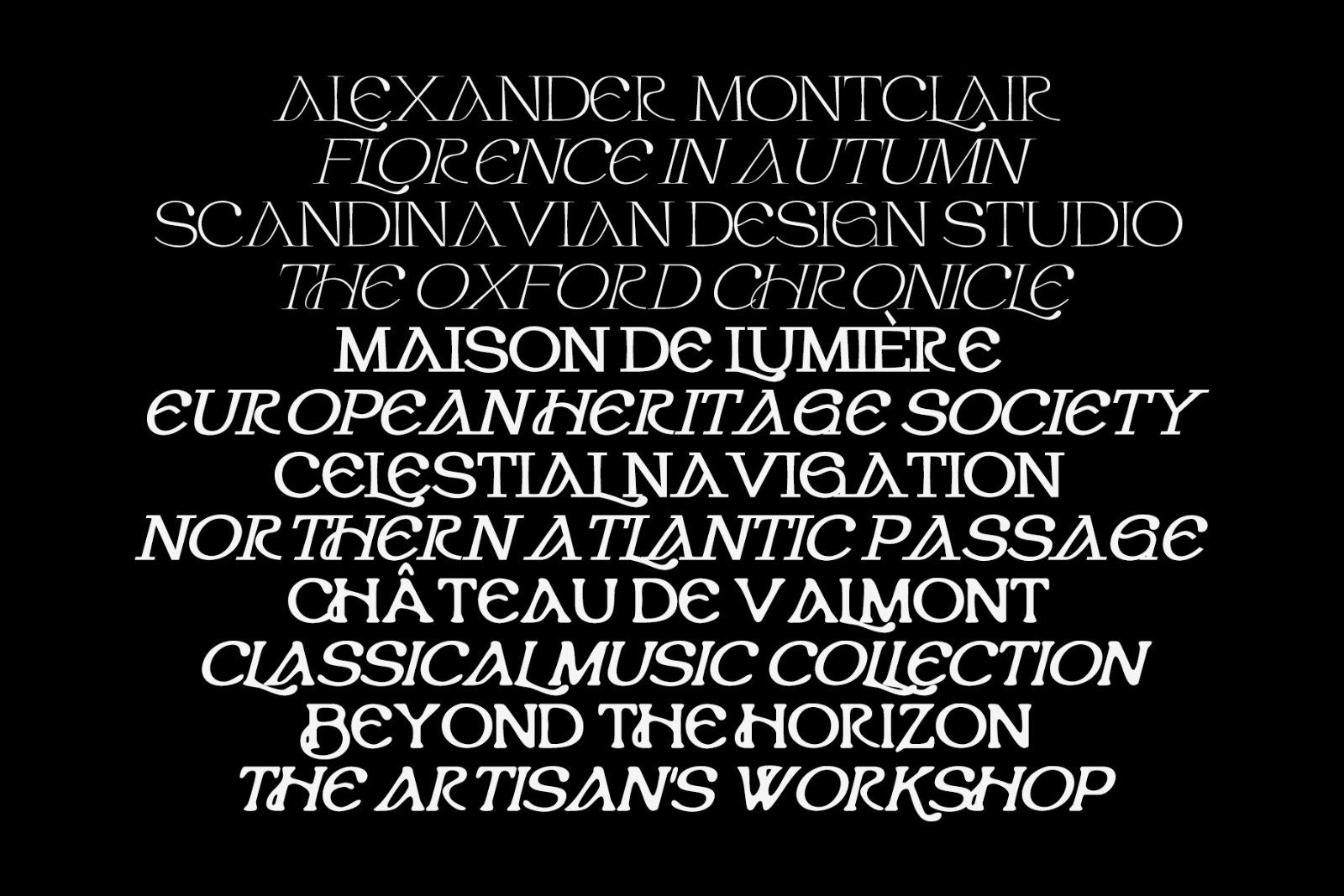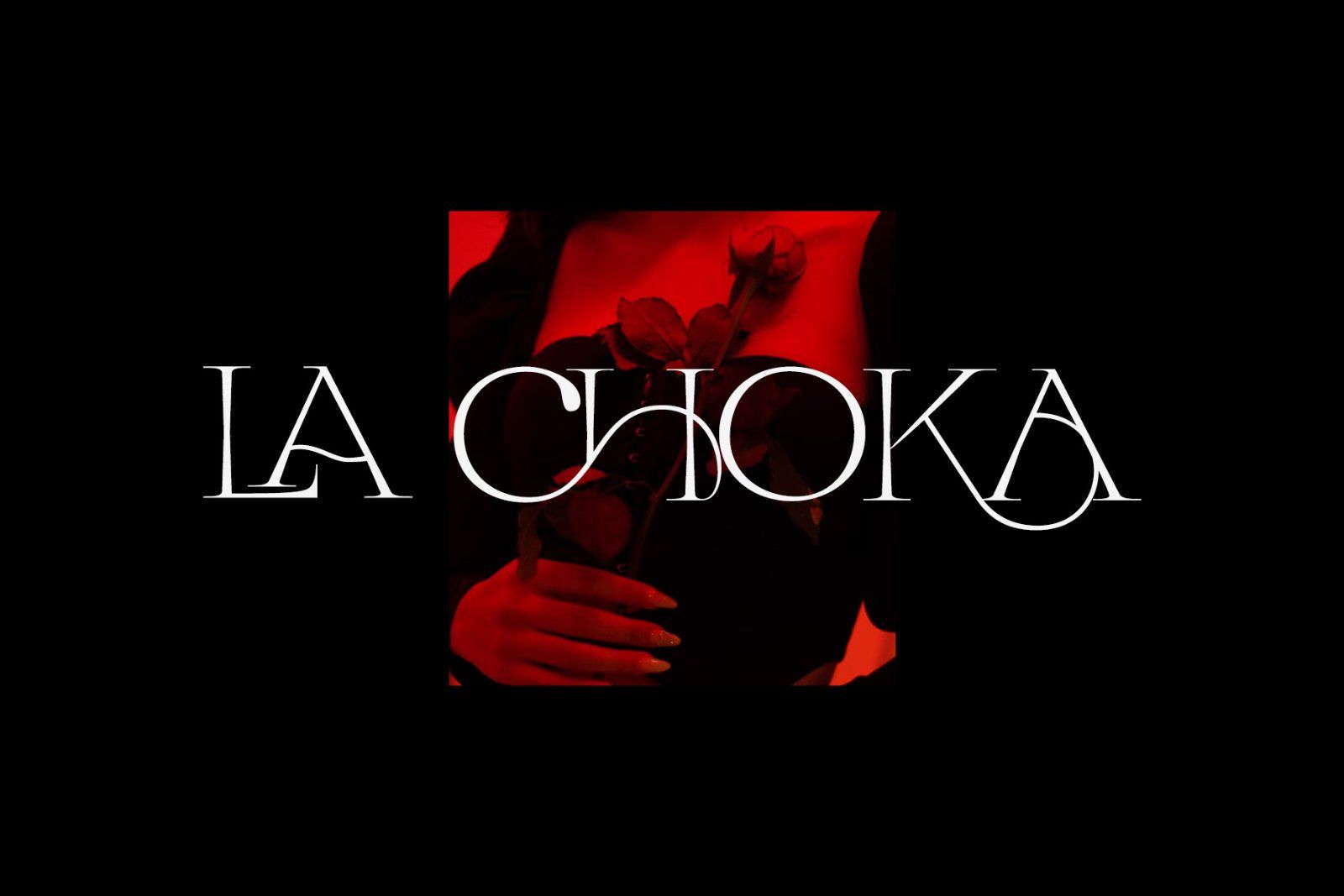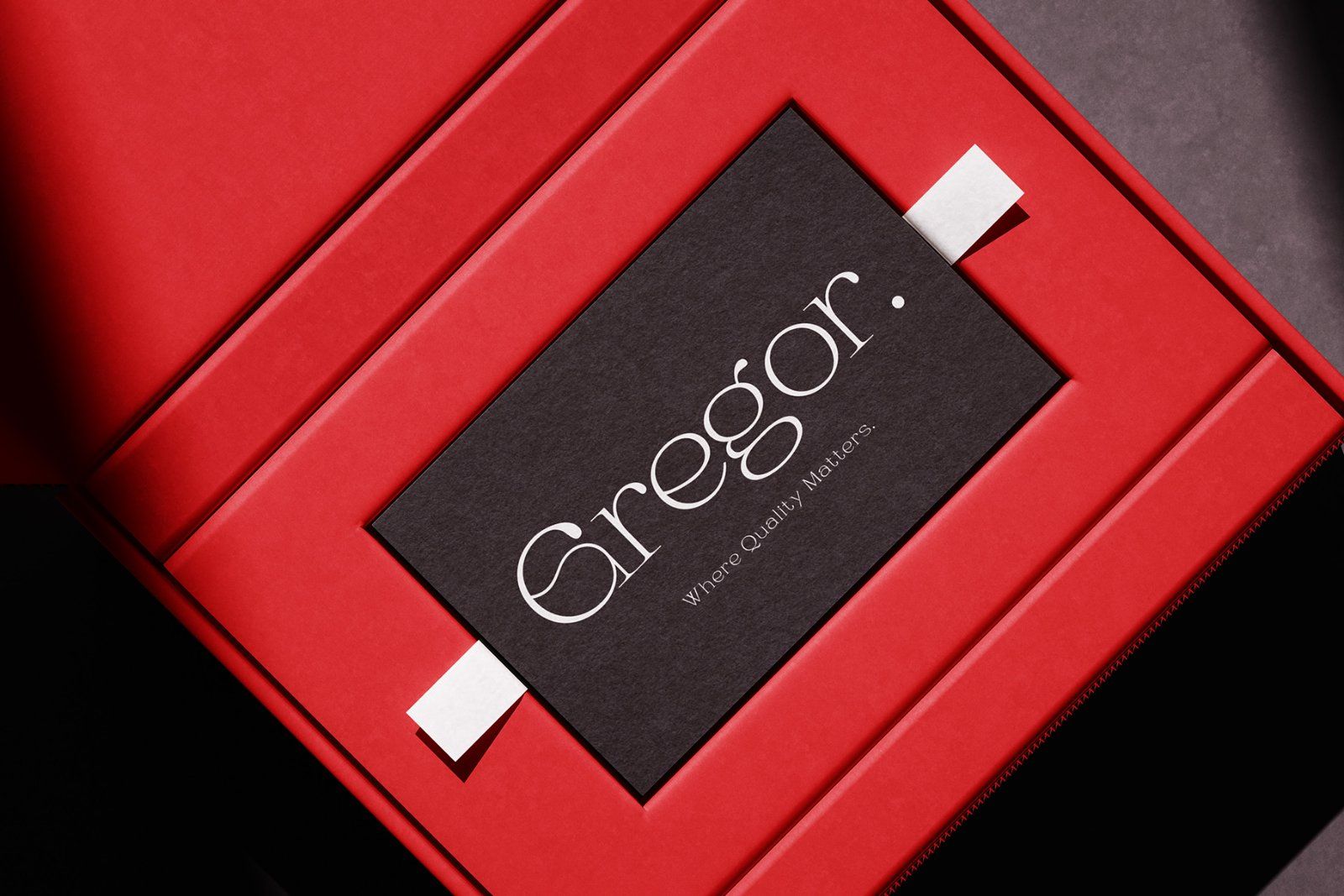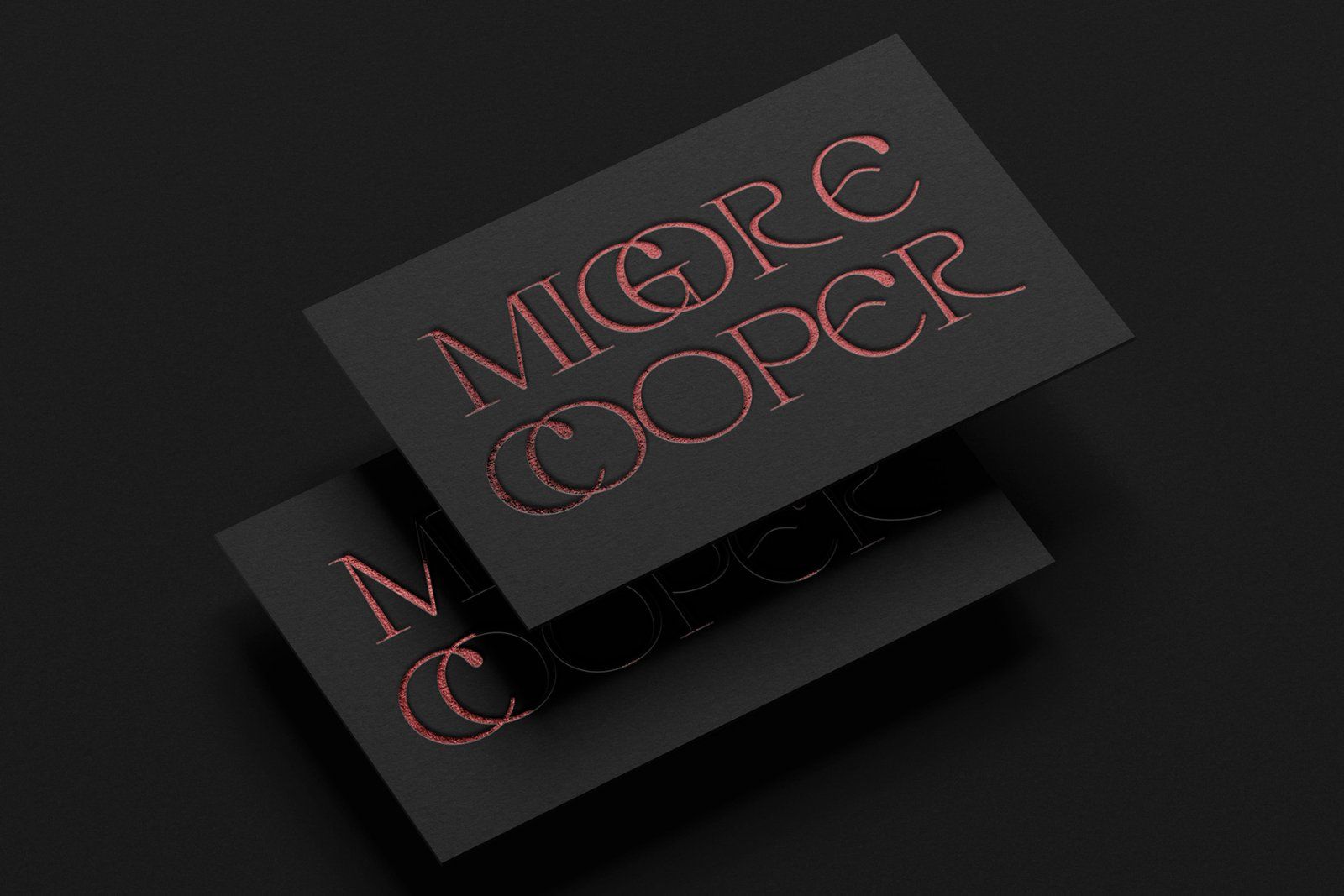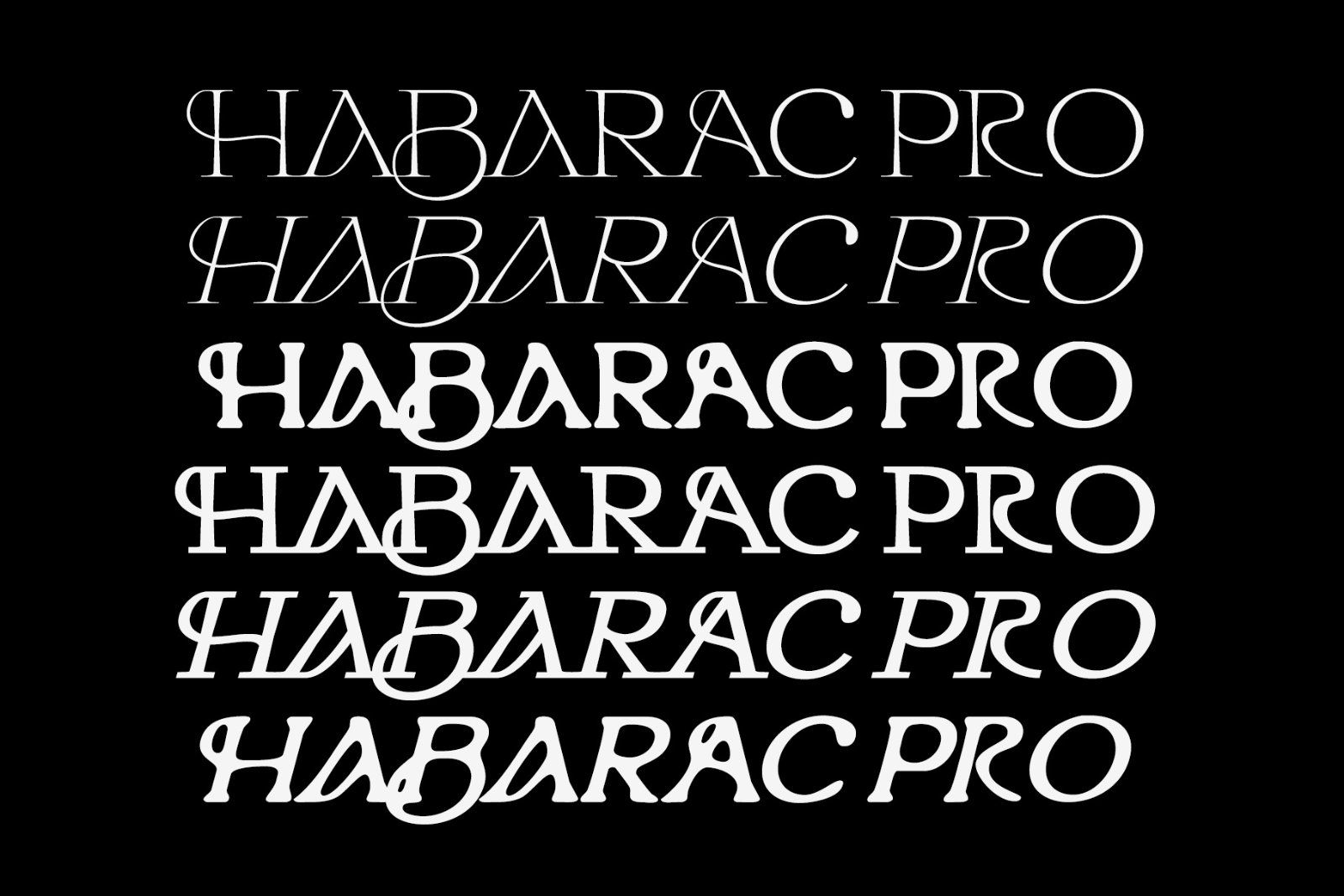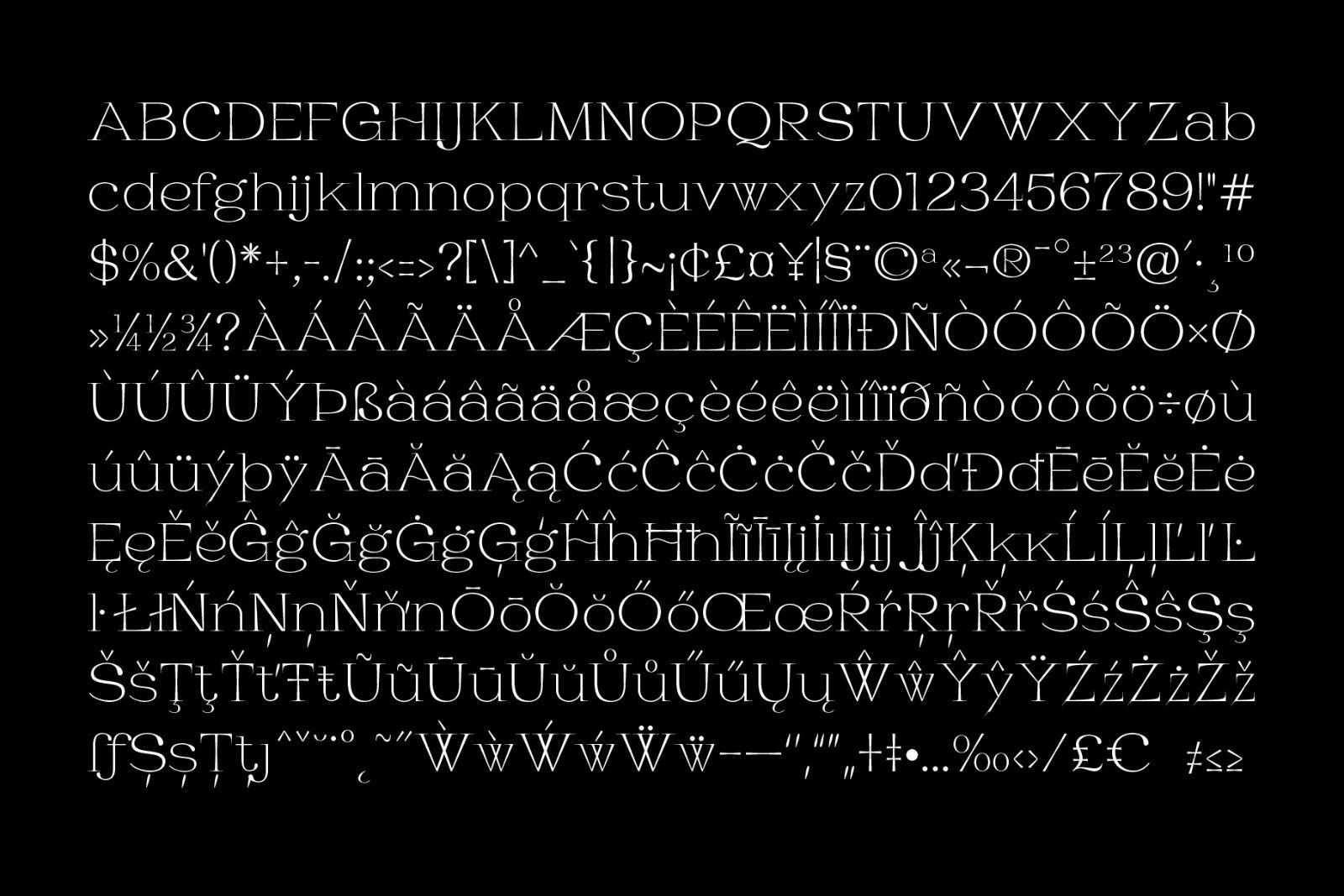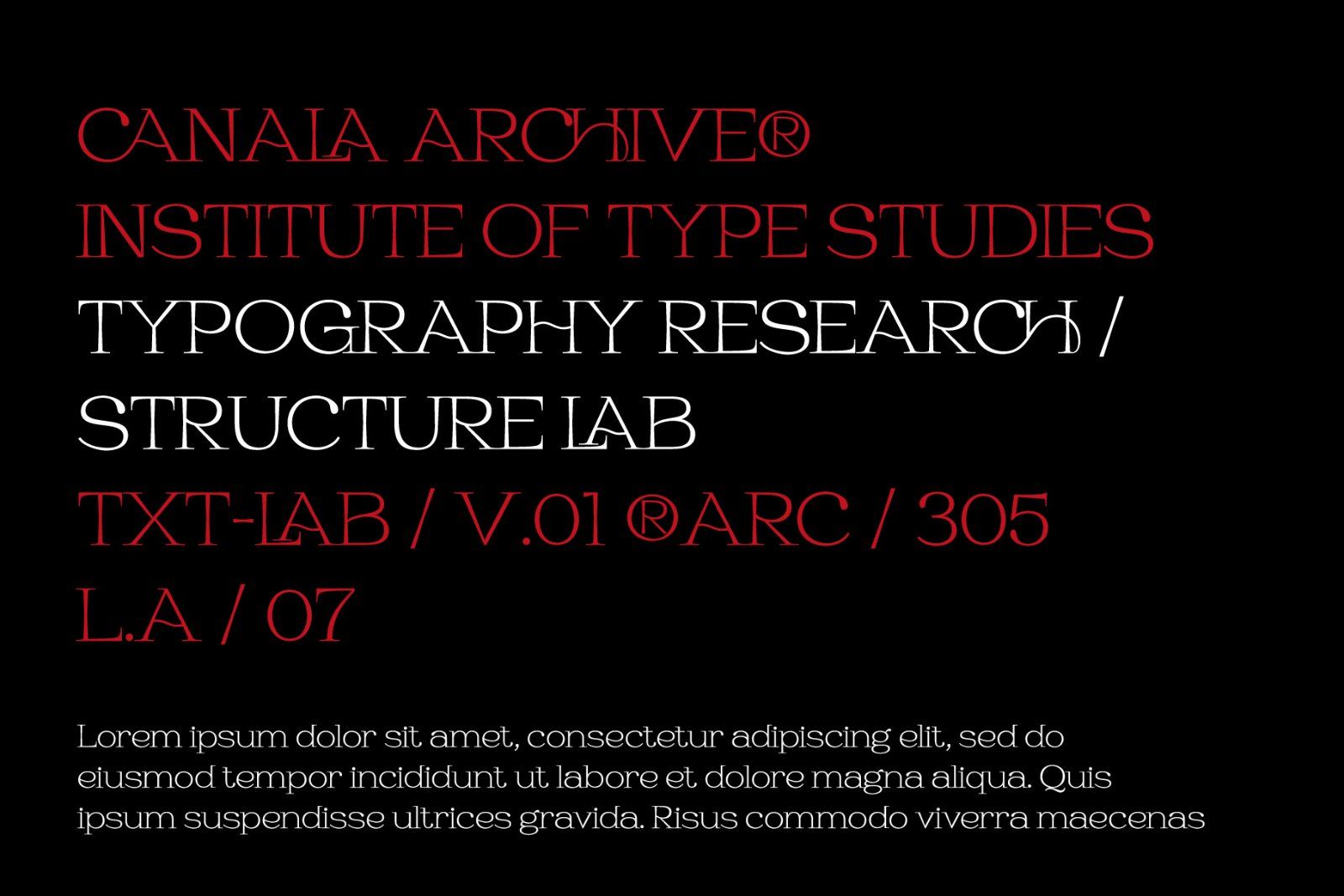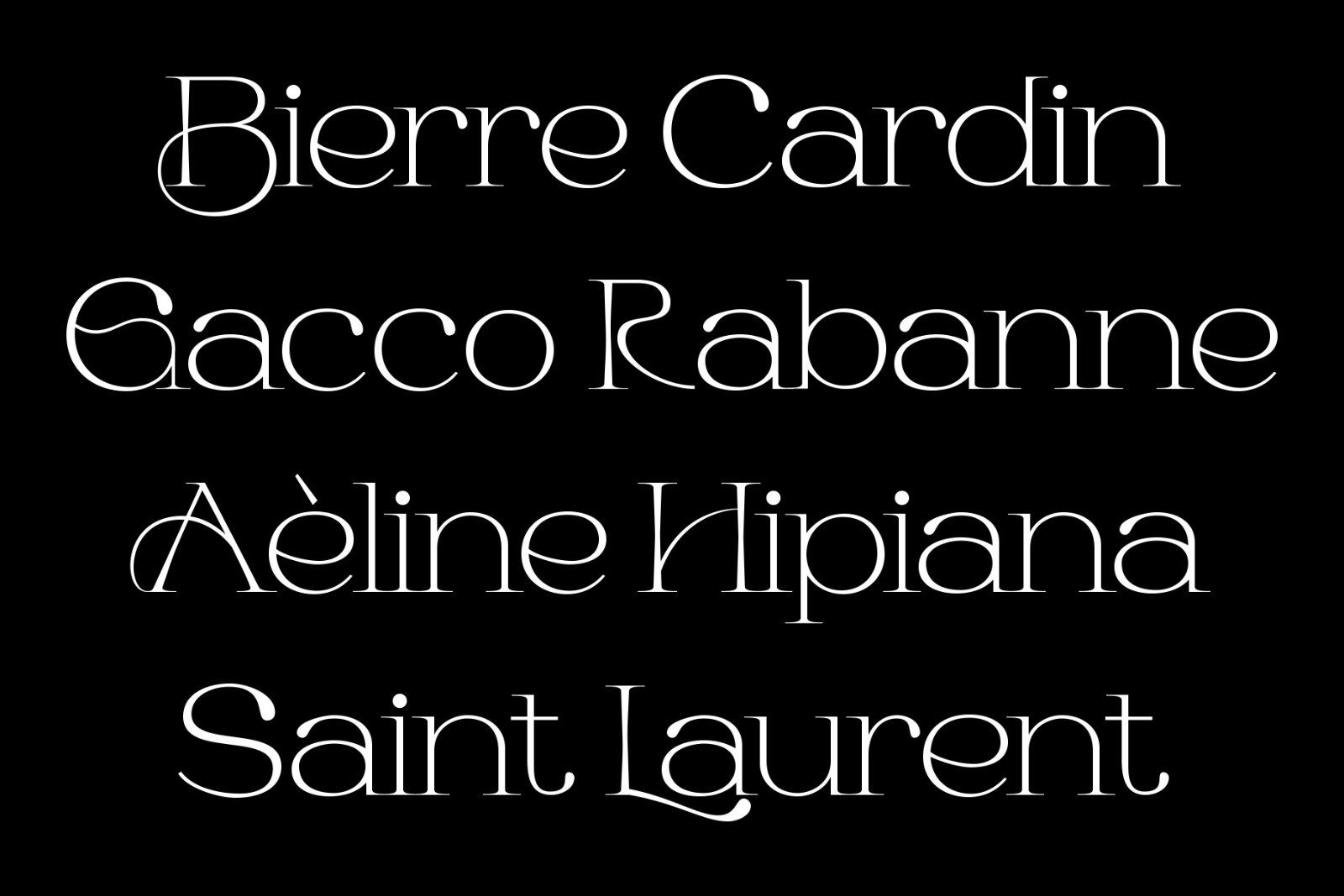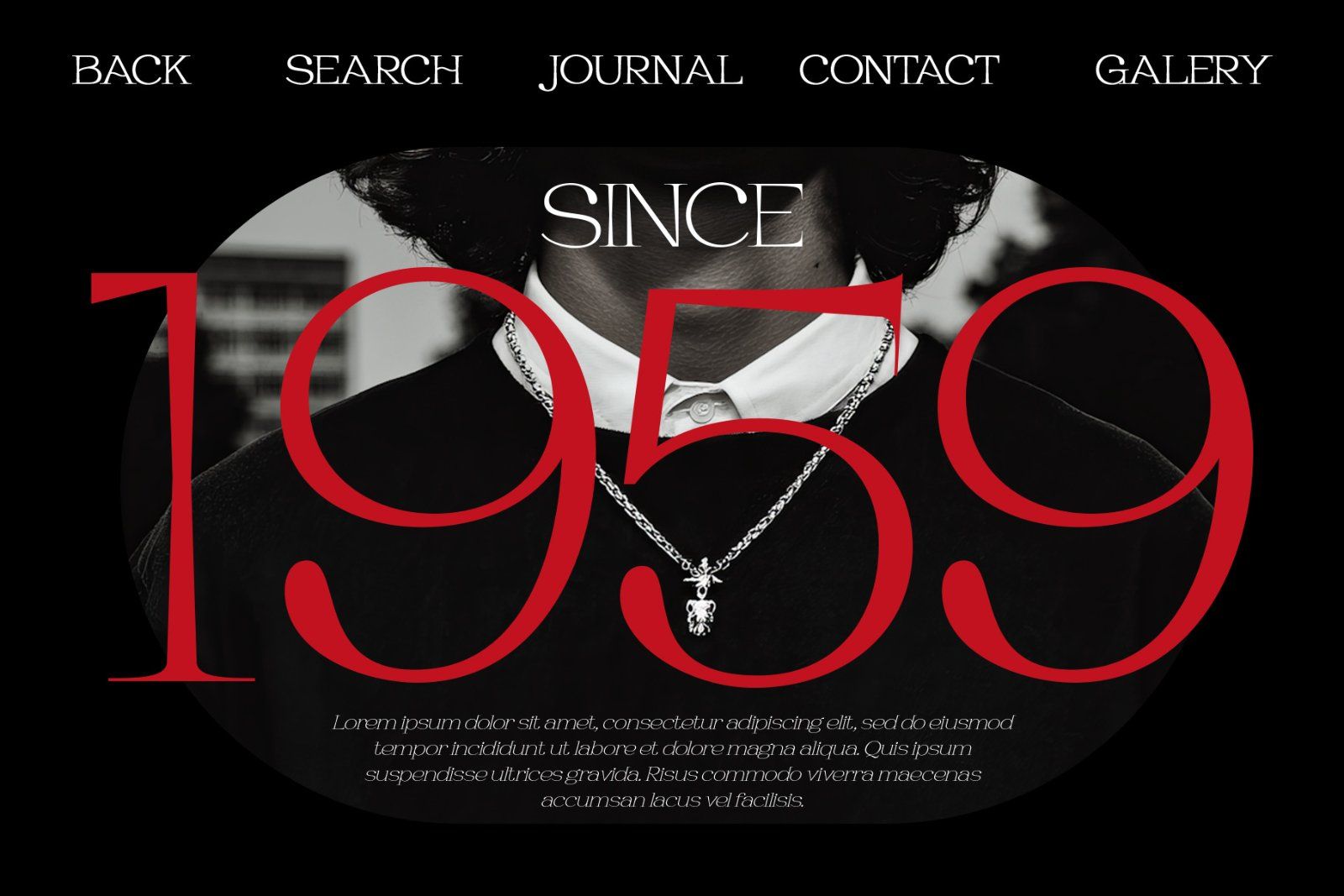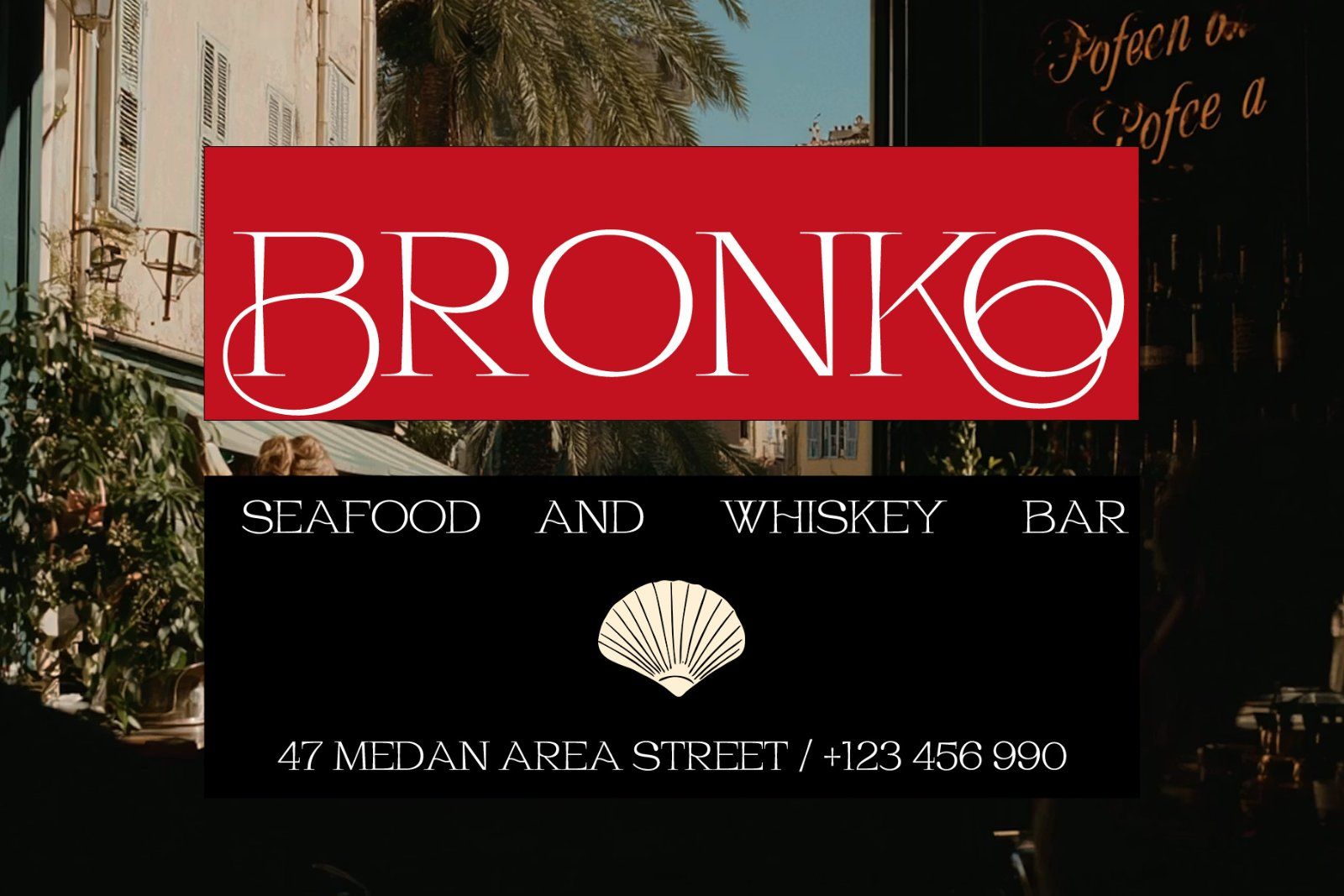
Habarac is a modern elegant serif typeface crafted to bring sophistication, luxury, and timeless beauty to your creative work. Designed with graceful letterforms, refined contrast, and artistic curves, Habarac is perfect for creating premium branding, editorial layouts, luxury packaging, fashion campaigns, and memorable logos.
Featuring an extensive collection of beautiful stylistic alternates and elegant ligatures, Habarac allows you to create distinctive typography with effortless style. Whether you're designing for high-end brands or modern minimalist projects, this typeface delivers a polished and professional aesthetic.
Perfect For:
• Luxury Branding
• Logo Design
• Editorial & Magazine
• Fashion Campaigns
• Cosmetic & Beauty Brands
• Wedding Invitations
• Product Packaging
• Social Media Graphics
• Website Headers
• Business Cards
• Quotes & Posters
• Creative Projects
• Numbers & Punctuation
• Beautiful Ligatures
• Stylistic Alternates
Why You'll Love Habarac
Habarac blends modern elegance with expressive details, making every word feel refined and distinctive. Its stylish alternates and flowing ligatures give designers the flexibility to create luxurious typography for both digital and print applications.
Whether you're building a fashion identity, designing premium packaging, or crafting editorial headlines, Habarac adds a sophisticated touch that elevates your work.